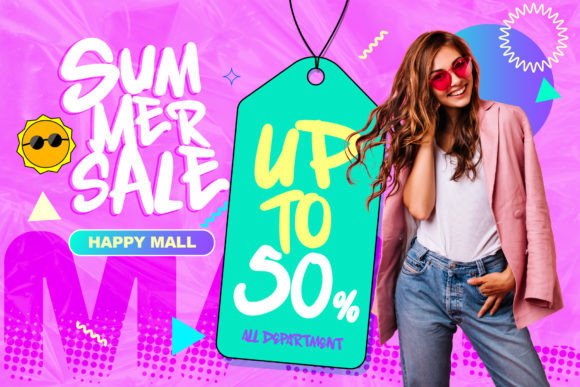
Incredible Love is an awesome, graffiti-styled display font that has a street art vibe. This font is suitable for designs such as t-shirts, sportswear, logos, advertisements, clothing, and more.
Incredible Love Font